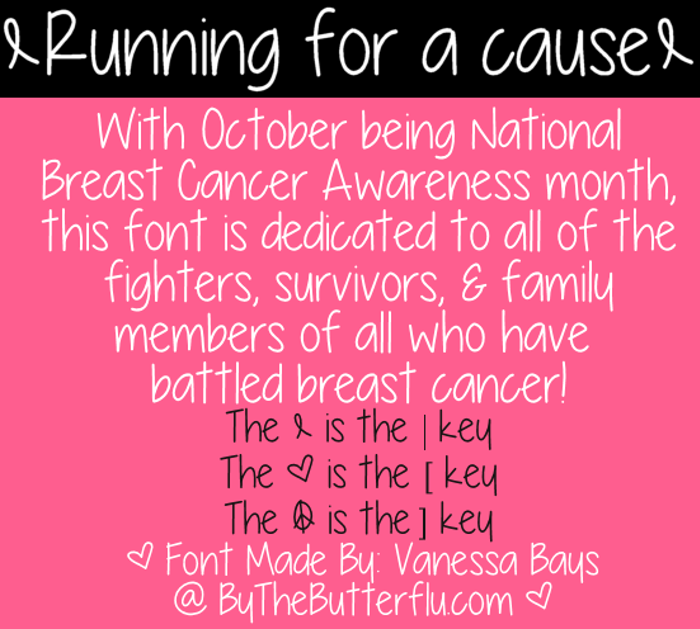
Running for a cause Font
Very cute & awesome as always!
Not only girly, it's kinda tomboyish... BTW, I luv the name- I run tons!
nice font very girly